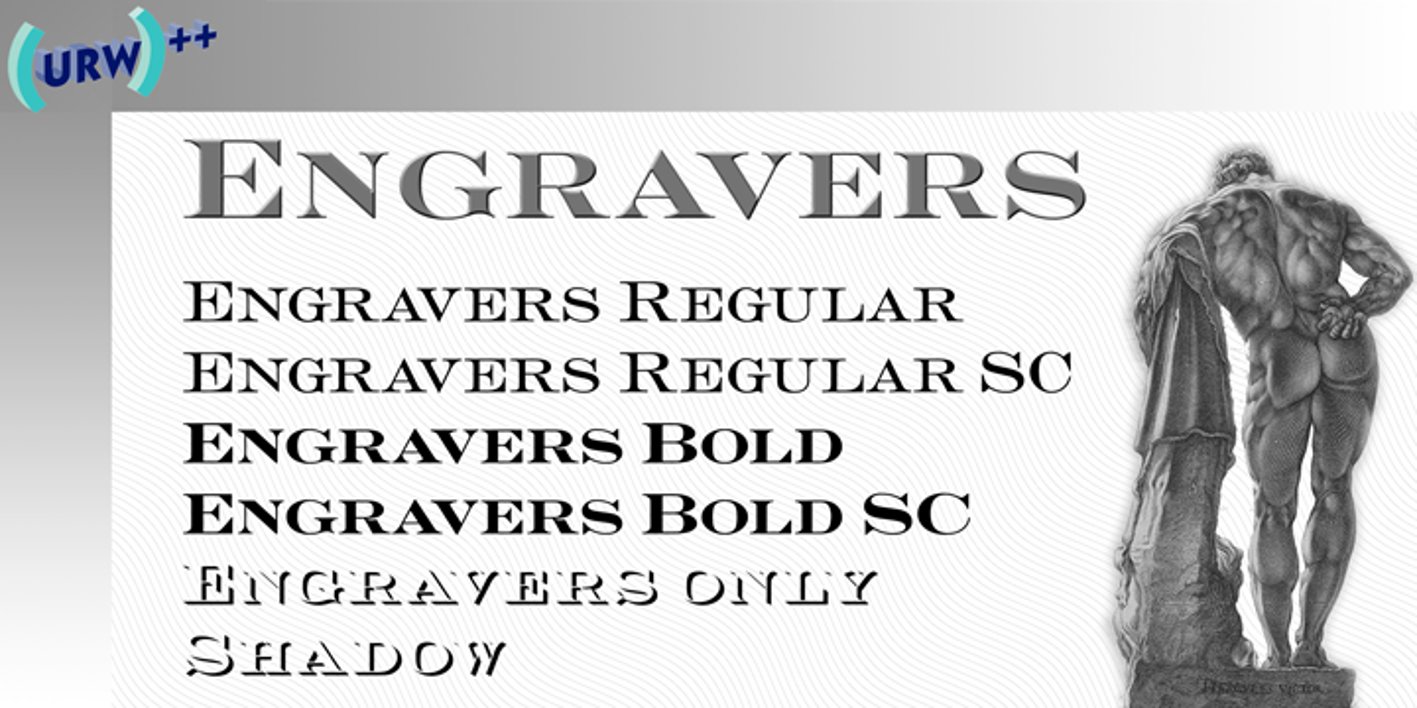
Engravers Font is perfect for custom engraving services, trophy and award manufacturing, memorial plaque designs, luxury jewelry inscriptions, professional certificate layouts, formal government documents, prestigious family crests, architectural building plaques, traditional monument inscriptions, and permanently distinguished marketing communications.
Engravers Font is exciting because it embodies the timeless precision and artisanal mastery of traditional engraving craftsmanship with its meticulously carved letterforms that seem etched by master craftsmen and carry the permanent elegance that transforms ordinary metal into lasting monuments of human achievement. Its craftsmanship-focused character design reflects both the technical skill required for precise engraving and the artistic vision that recognizes certain messages deserve to be preserved in stone and metal for generations, making it perfect for brands celebrating permanent quality and artisanal excellence.
Engravers Font family includes light, regular, medium, bold, and black weights, each with corresponding italic versions. The font family also features engraving ornaments, craftsman-inspired ligatures, memorial symbols, and permanent decorative elements that enhance its distinguished aesthetic and engraving industry versatility.
This permanently distinguished typeface represents the perfect fusion of artisanal craftsmanship and lasting elegance. Engravers Font Free Download enables designers to experience its engraving potential before making a commercial commitment. The font's ability to convey both technical precision and permanent dignity makes it ideal for engraving services, memorial companies, and luxury brands targeting clients seeking lasting quality and artisanal craftsmanship excellence.
Whether you're developing engraving service identities, creating memorial materials, or designing permanent recognition communications, Engravers Font brings an unmistakable sense of artisanal precision and lasting dignity to every project. Its meticulously carved character and craftsmanship heritage create powerful connections that resonate with clients seeking permanent quality and artisanal excellence in their most meaningful commemorations.
The font's versatility excels in memorial and luxury environments where permanent quality and artisanal craftsmanship are paramount. Its distinguished character makes it particularly effective for engraving services, trophy manufacturers, memorial companies, and luxury brands seeking to establish lasting relationships with clients who demand permanent quality and artisanal precision in their most treasured possessions.
For designers working on projects requiring genuine artisanal appeal and permanent quality, Engravers Font provides an exceptional solution. Its permanently distinguished presence and comprehensive engraving elements offer the tools needed for creating truly lasting communications, while its craftsmanship excellence ensures your designs capture the artisanal precision and permanent dignity that defines the most treasured engraved pieces and memorable commemorative excellence.